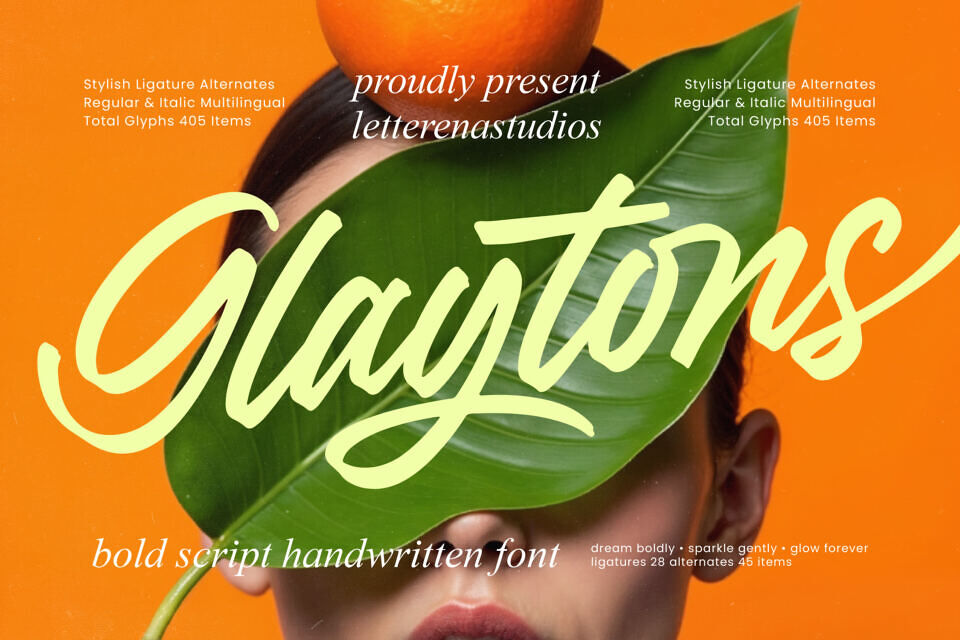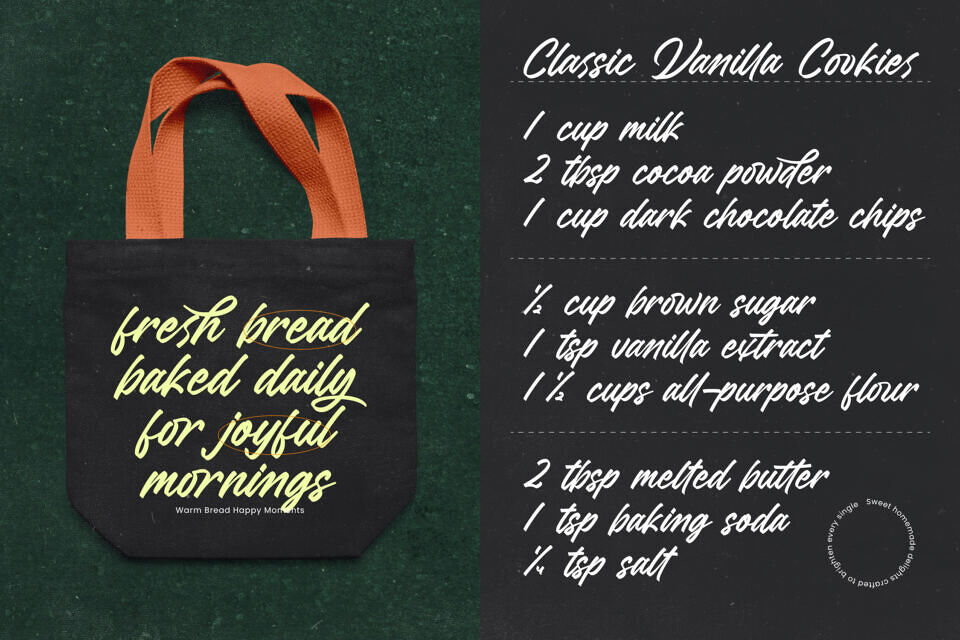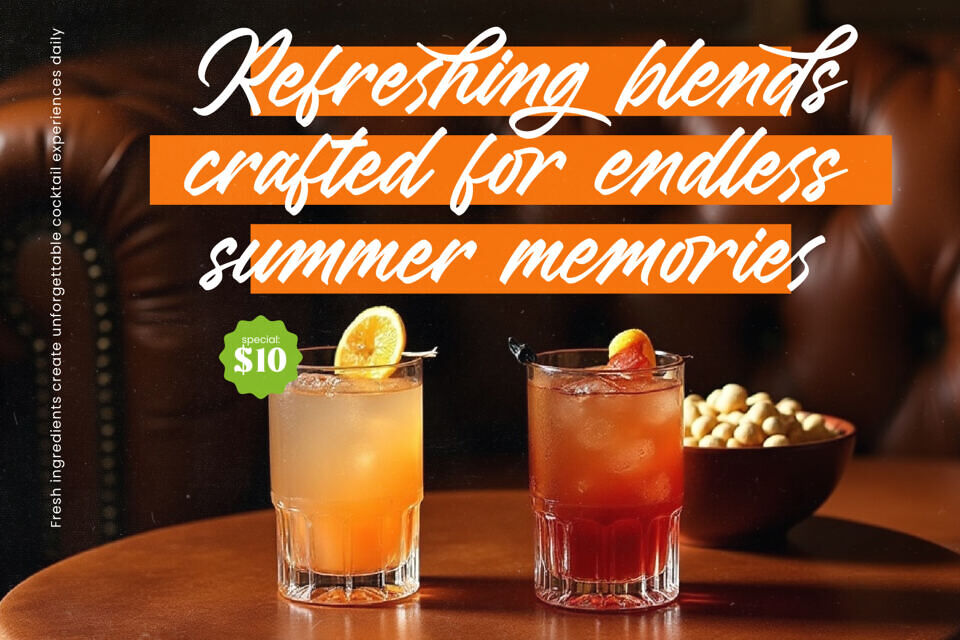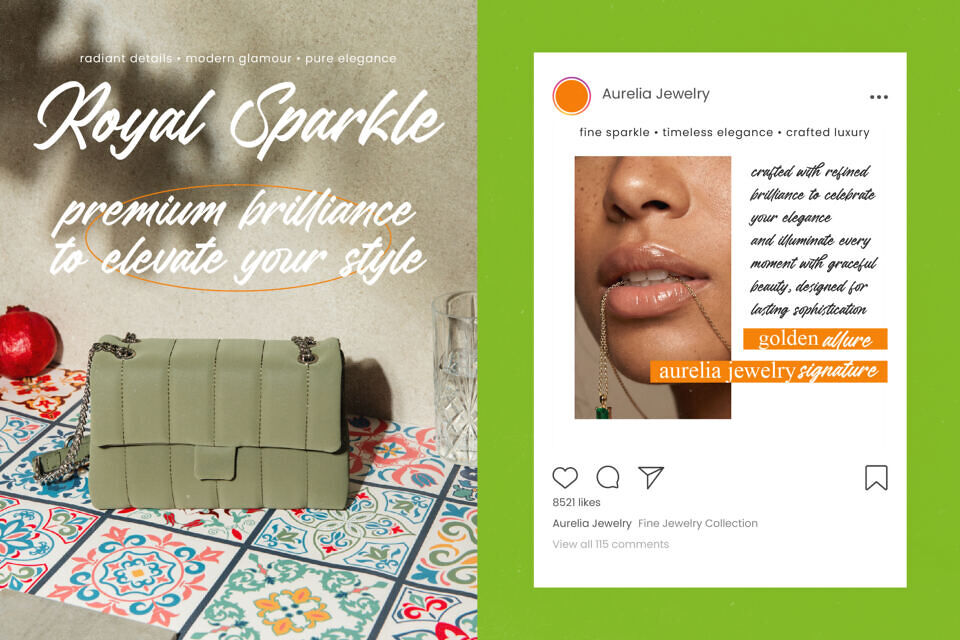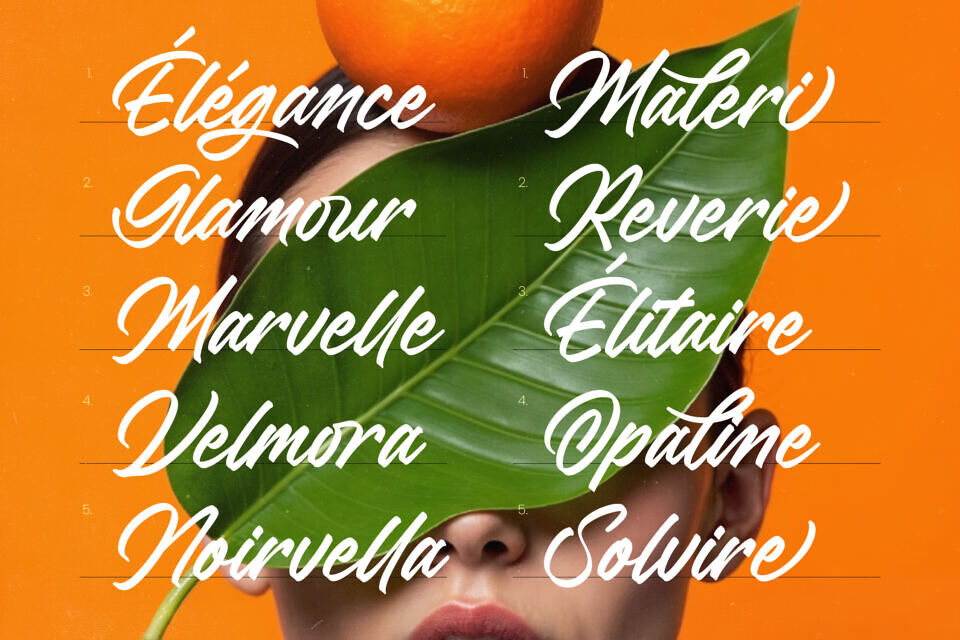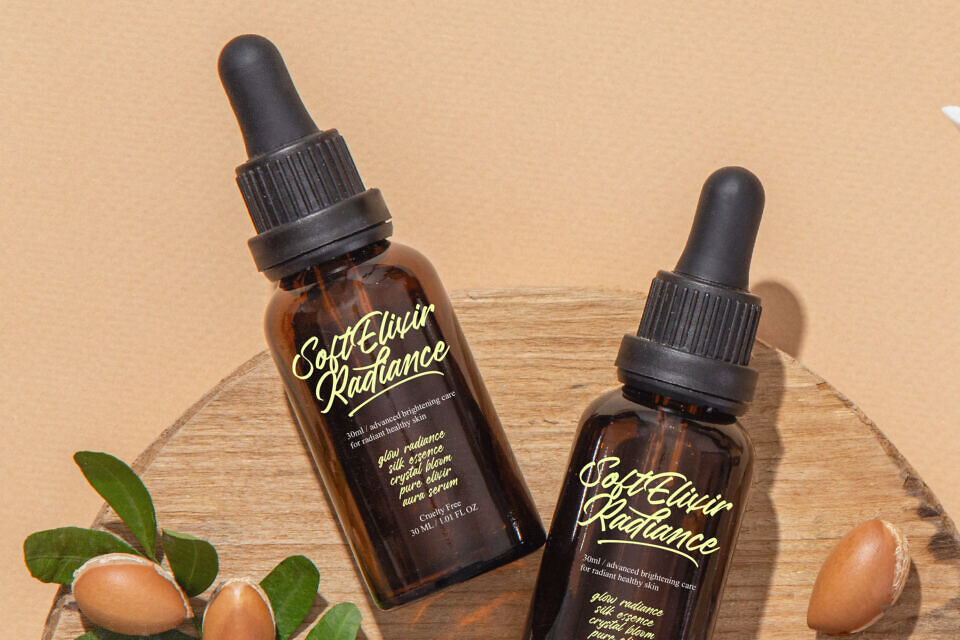
Glaytons Font
Elevate your designs with Glaytons, a sophisticated handwritten font. Its bold, fluid strokes bring a touch of modern elegance and organic energy. With 405 premium glyphs and extensive multilingual support, it’s perfect for global projects.
The font’s versatility and customization options make it ideal for luxury branding, editorial design, and logo creation, offering a unique blend of artistic flair and technical excellence.